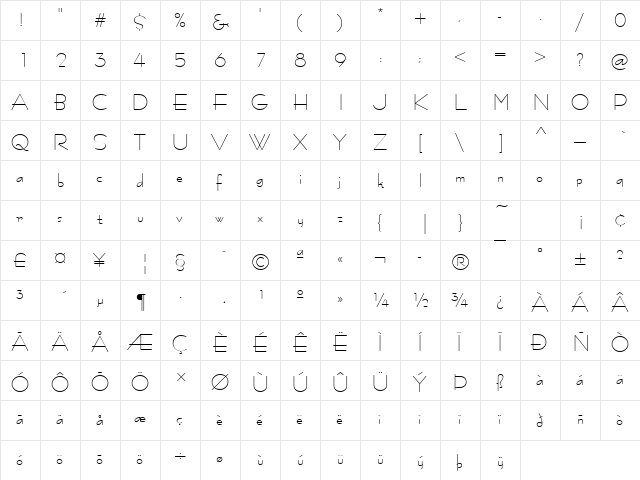
Bernhard Becker Fashion Regular
Design Context for Bernhard Becker Fashion Typeface
Bernhard Becker Fashion takes a measured approach to typography — its balanced proportions and neutral character make it a reliable workhorse for both digital and print work.